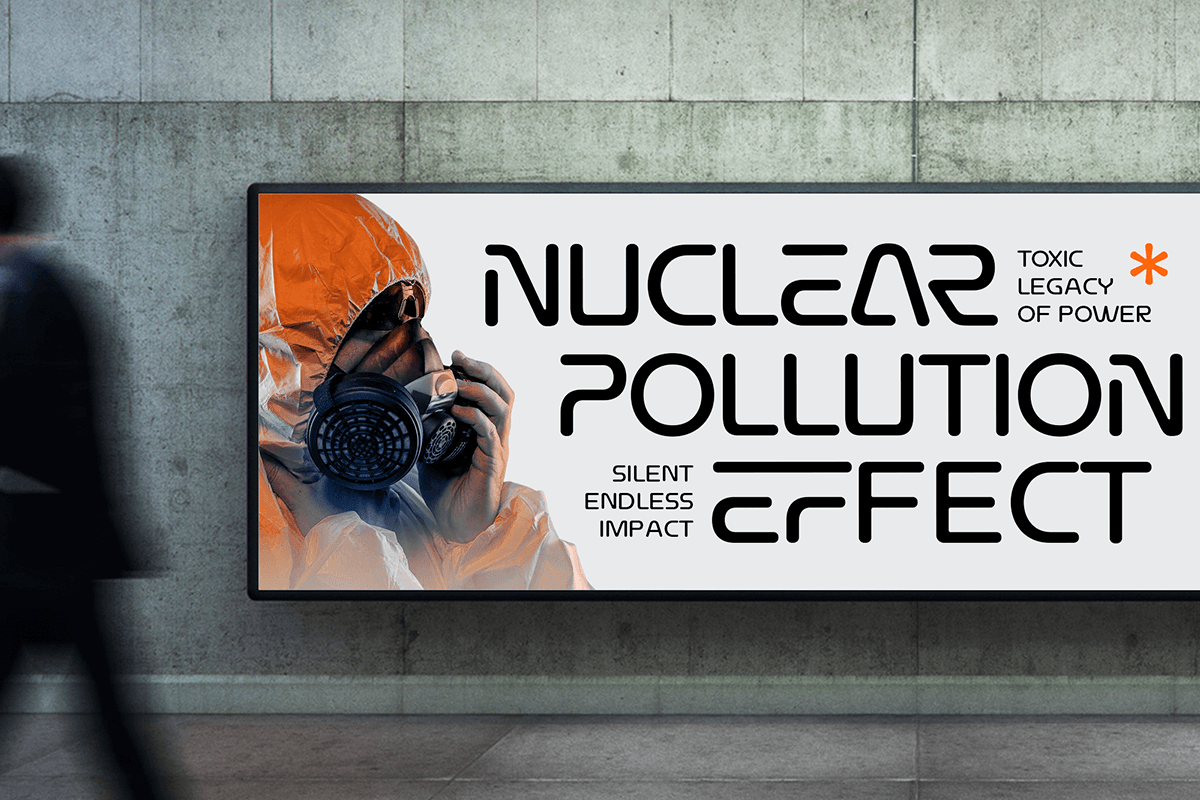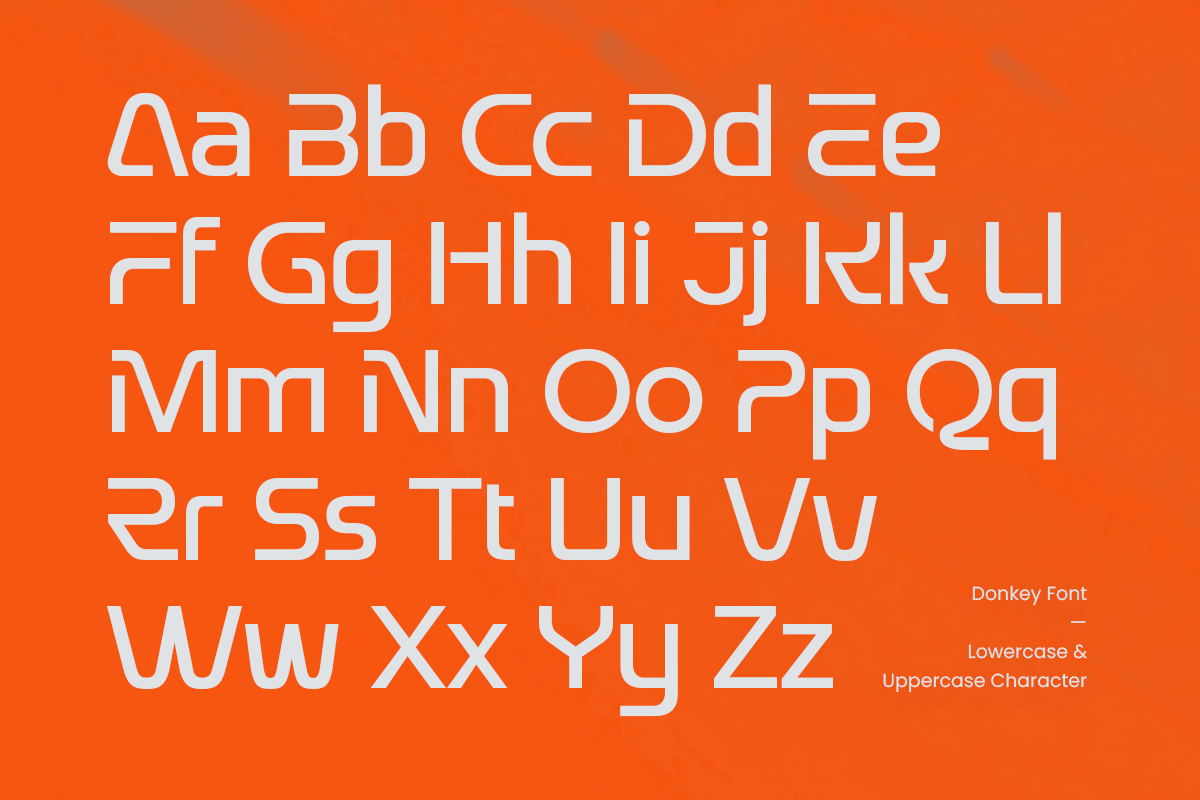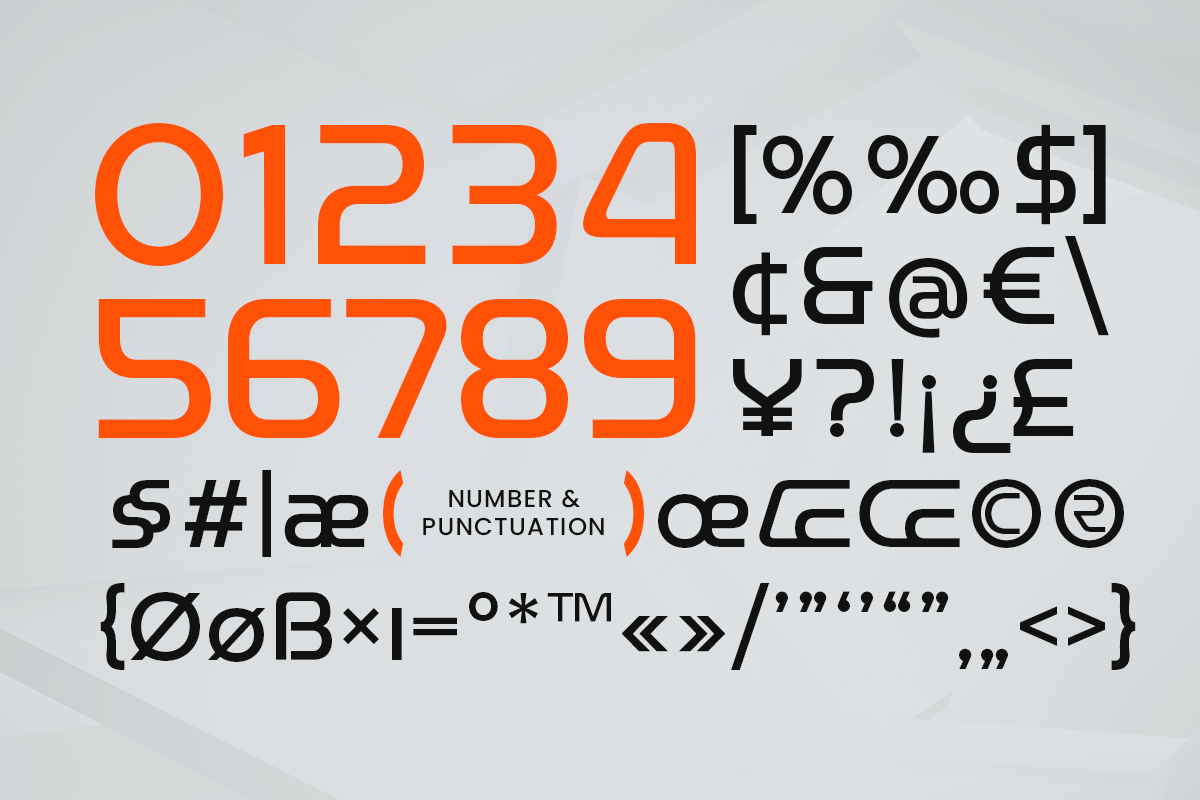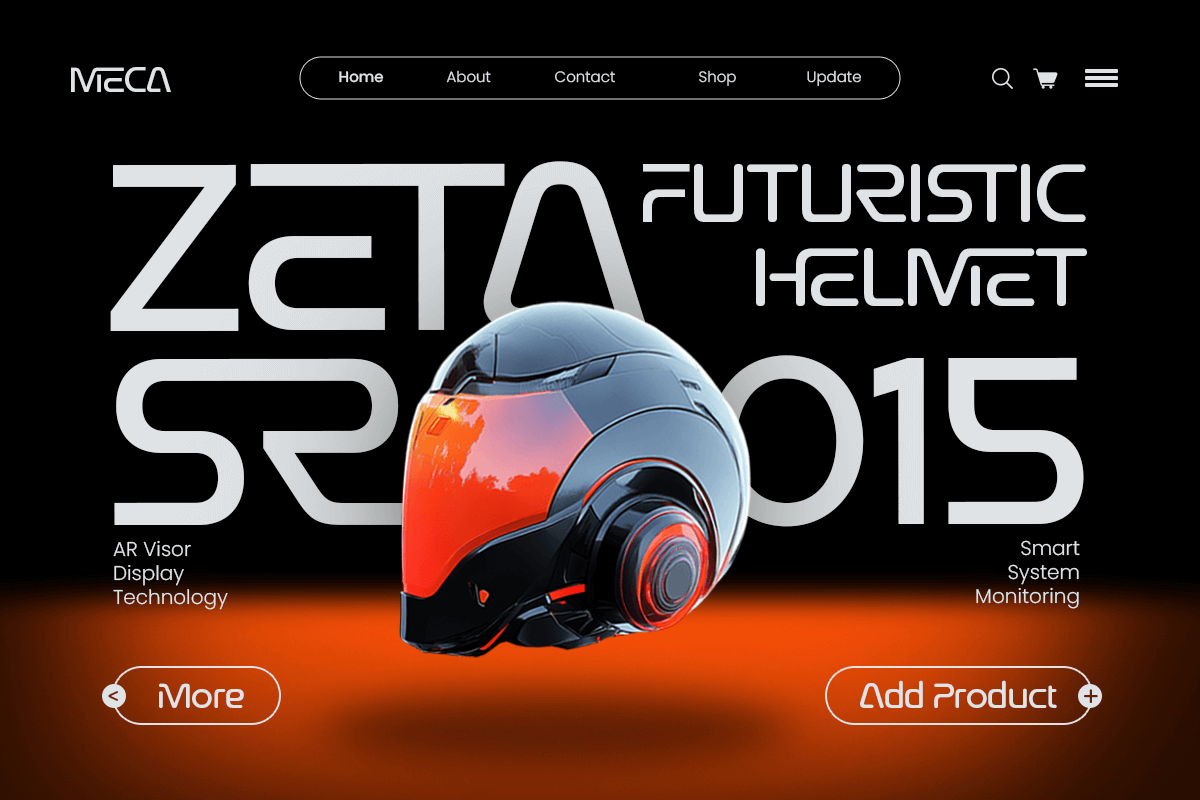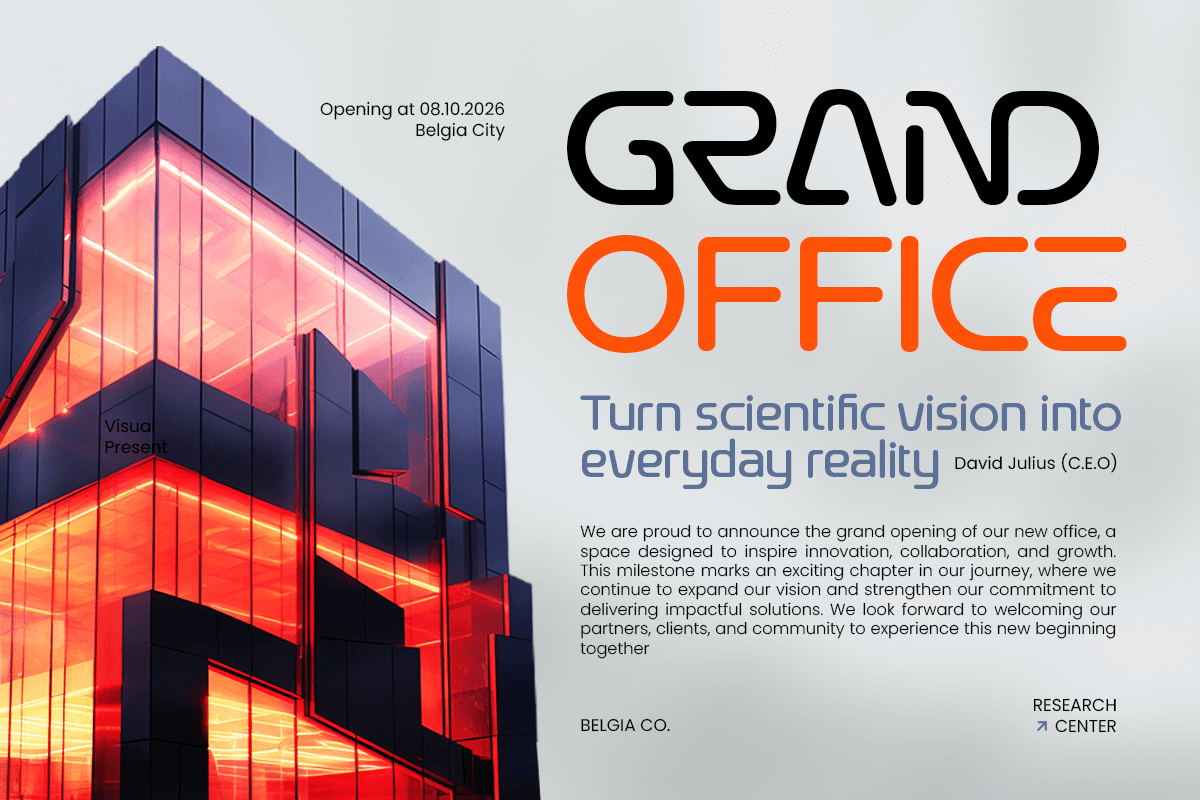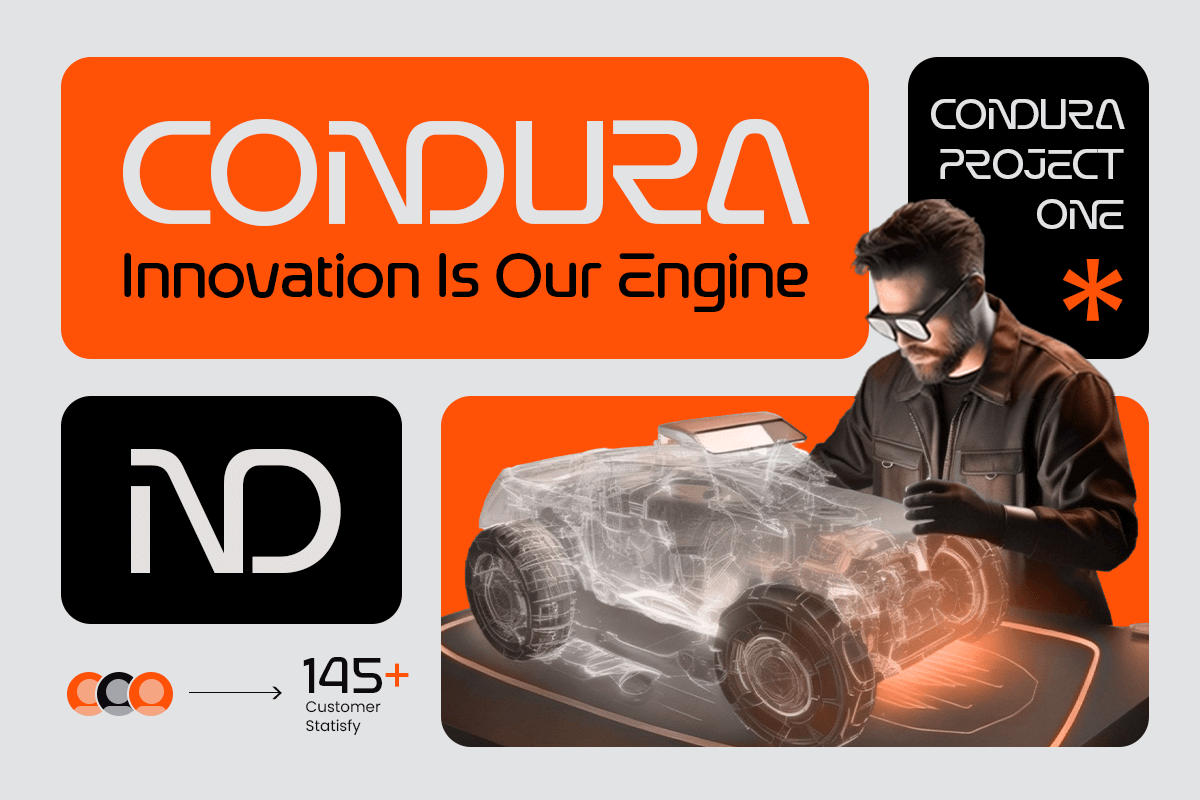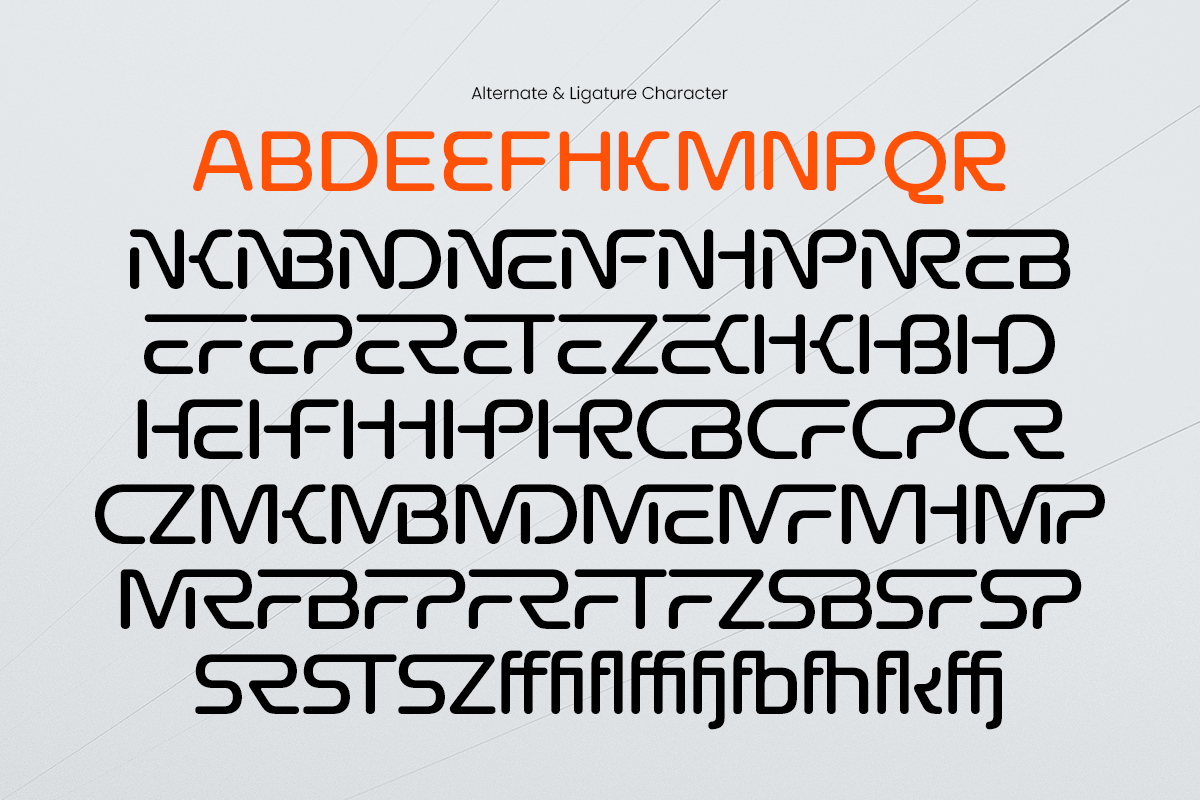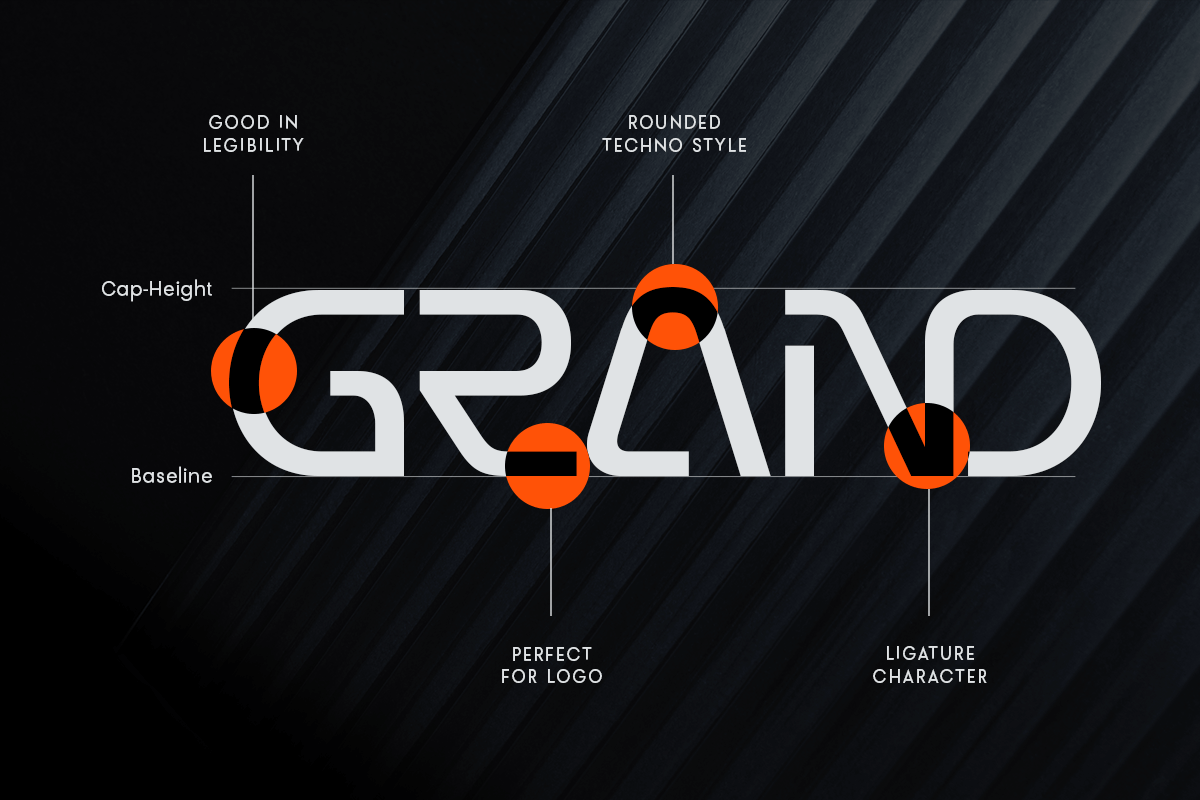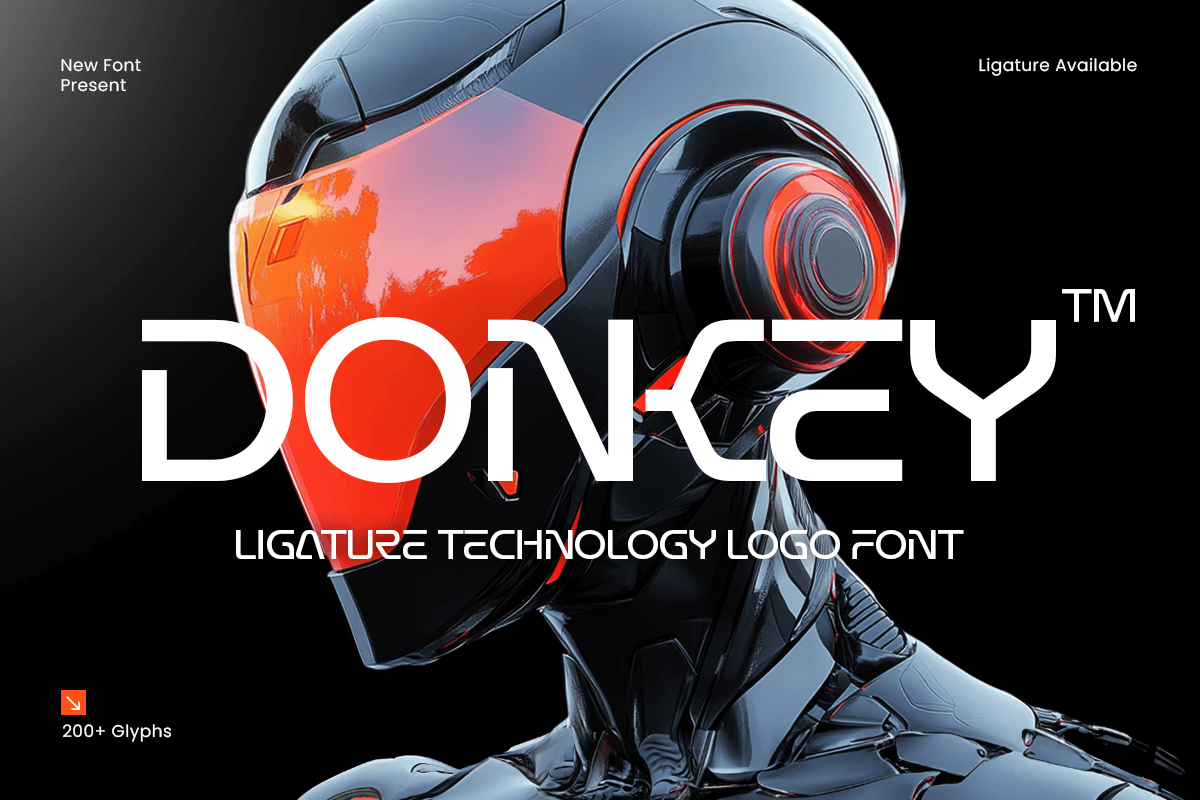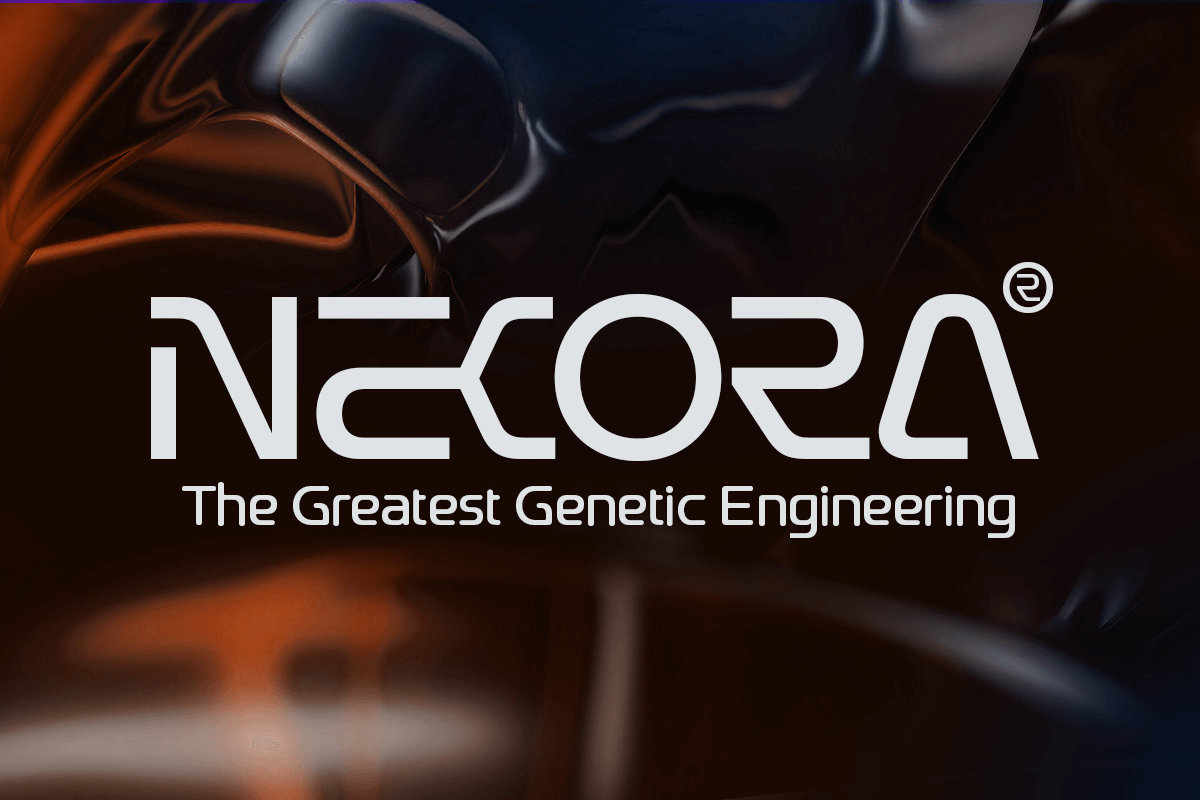
Donkey - Ligature Technology Font
Donkey – Ligature Technology Logo Font
Donkey is a modern and futuristic logo font featuring sleek ligatures and clean geometric precision. Designed for technology-inspired branding, Donkey combines minimalism and innovation to create a strong visual identity that’s perfect for digital companies, startups, and creative brands.
With its unique letter connections and professional structure, Donkey delivers a distinctive typographic style that enhances modern logos, UI designs, product packaging, and marketing visuals. The ligature details make each word look dynamic, sophisticated, and memorable — ideal for tech-forward and design-driven projects.
Donkey – Ligature Technology Logo Font Features:
\* Modern geometric design with stylish ligature connections
\* Perfect for tech logos, digital branding, and UI/UX design
\* Includes uppercase, lowercase, numerals, and punctuation
\* OpenType features and optimized kerning for professional results
\* Great for modern startups, gaming, and innovation-based brands
Bring innovation to your branding with Donkey – the ligature logo font that defines technology and modern design.